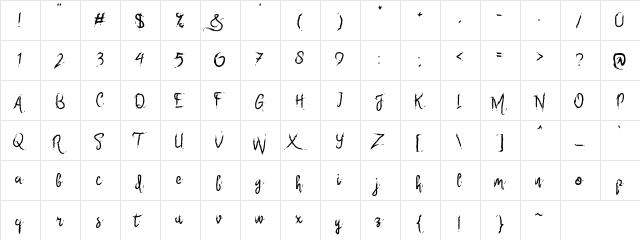
Six Only Regular
| Designer | IJEM_SKULLPEN_FERDIANSYAH |
Design Context for Six Only Typeface
Six Only is a composed and adaptable typeface that performs quietly and consistently across a wide range of design contexts.